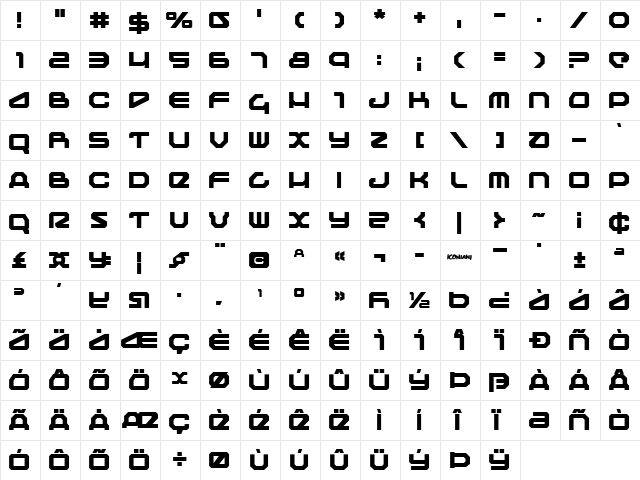
Traveler Bold Bold
Design Context for Traveler Bold Typeface
Traveler Bold is a composed and adaptable typeface that performs quietly and consistently across a wide range of design contexts. Its bold stroke weight gives it real presence on the page.